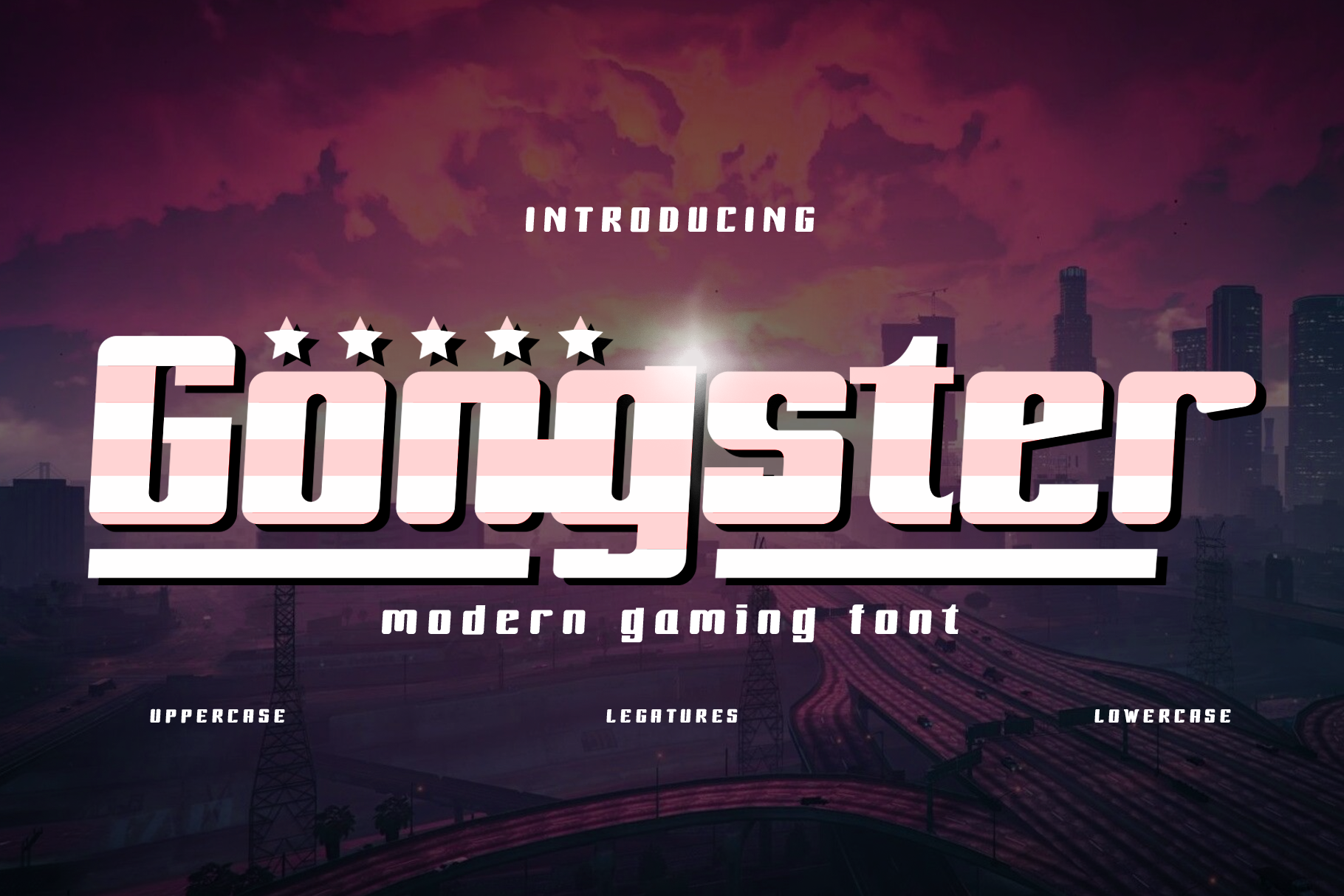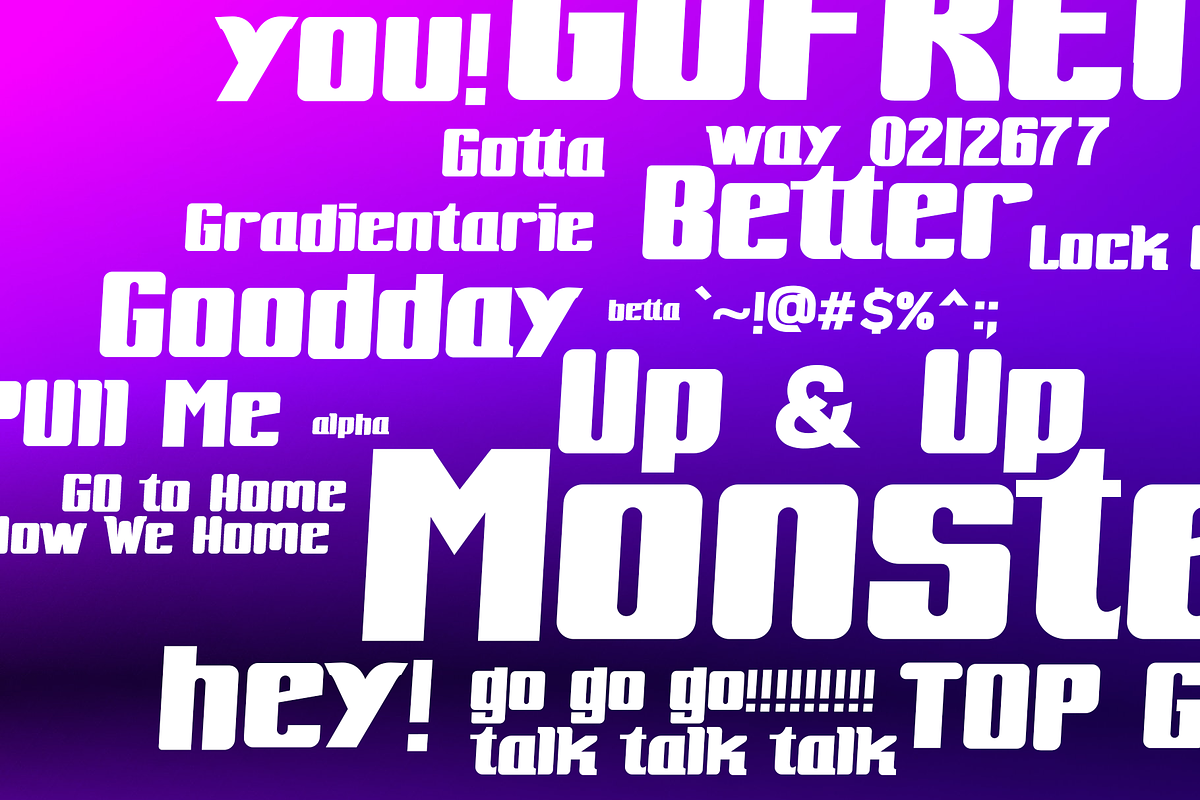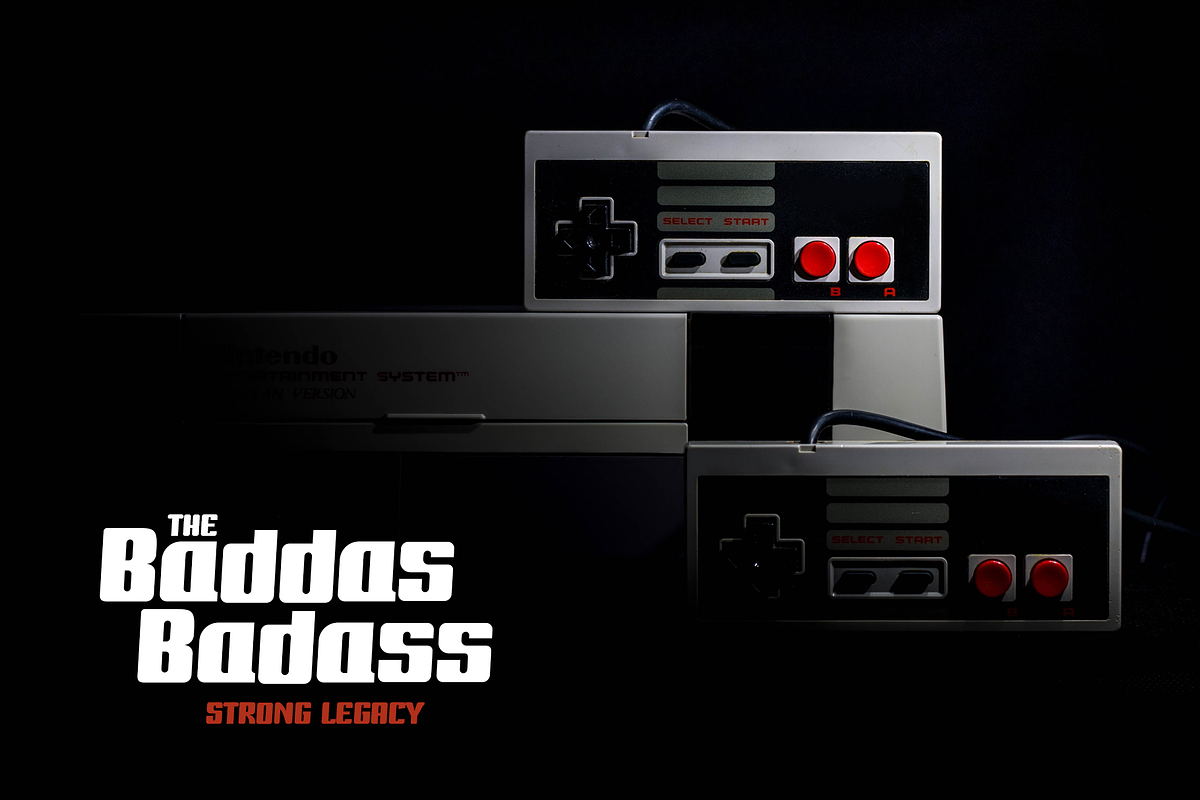
Gongster - Modern Gaming Font
Introducing Gongster, an brave, simple, and modern display font. So perfect for you who needs a typeface for logo esports team, designs, magazine, social media, brochure, and many more.